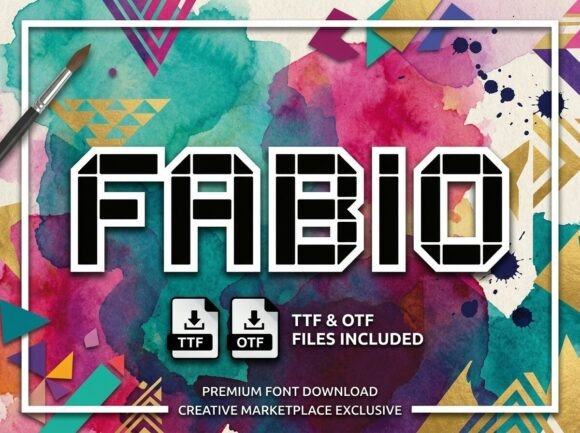
Introducing Fabio Font: The Cutting-Edge Digital Display Typeface
In the world of digital design, typography plays a crucial role in capturing the attention of audiences and conveying the message effectively. With the ever-evolving landscape of digital media, designers are constantly on the lookout for innovative and modern fonts that can give their creations a competitive edge. This is where Fabio Font comes in – a revolutionary digital display font designed to make a lasting impact.
The Design Philosophy Behind Fabio
Fabio Font is the brainchild of designers who sought to create a typeface that embodies the essence of modernity and technological advancements. The font features massive, geometric letterforms constructed with sharp, industrial angles and technical apertures that mimic the look of a high-performance LED dashboard. This design approach gives Fabio a unique and futuristic appearance, making it an ideal choice for projects that require a bold and avant-garde look.
Key Characteristics of Fabio Font
- Heavy Visual Weight: Fabio’s bold and substantial letterforms ensure maximum visibility, making it perfect for headlines, titles, and other display purposes.
- Rhythmic, Structural Silhouette: The font’s geometric design creates a rhythmic and structural silhouette that adds a sense of dynamism and energy to any design.
- Industrial Angles and Technical Apertures: The sharp, industrial angles and technical apertures in Fabio’s design give it a cutting-edge look that’s reminiscent of high-performance technology.
Applications of Fabio Font
Fabio Font’s versatility and unique design make it suitable for a wide range of applications, including:
- Gaming Interfaces: Fabio’s bold and futuristic design makes it an excellent choice for gaming interfaces, where visibility and impact are crucial.
- Tech-Focused Branding: The font’s modern and technological look makes it perfect for tech-focused branding, where companies want to convey a sense of innovation and cutting-edge expertise.
- Futuristic Cinema Titles: Fabio’s futuristic design and heavy visual weight make it an ideal choice for cinema titles that require a bold and attention-grabbing look.
- Bold High-Contrast Editorial Layouts: The font’s rhythmic, structural silhouette and heavy visual weight make it suitable for bold high-contrast editorial layouts that require a modern and dynamic look.
The Benefits of Using Fabio Font
Fabio Font offers several benefits to designers and crafters, including:
- Maximum Visibility: Fabio’s bold and substantial letterforms ensure maximum visibility, making it perfect for headlines and titles.
- Modern Impact: The font’s futuristic design and heavy visual weight give it a modern and impactful look that’s sure to grab attention.
- Brilliant Precision: Fabio’s geometric design and technical apertures give it a sense of brilliant precision and unyielding digital power.
In conclusion, Fabio Font is a cutting-edge digital display font that’s designed to make a lasting impact. Its unique design philosophy, key characteristics, and versatility make it an excellent choice for designers and crafters looking to add a modern and futuristic touch to their creations. Whether you’re working on a gaming interface, tech-focused branding, futuristic cinema titles, or bold high-contrast editorial layouts, Fabio Font is sure to deliver a sense of brilliant precision and unyielding digital power to your designs.
Get Ready to Step into the Future with Fabio Font